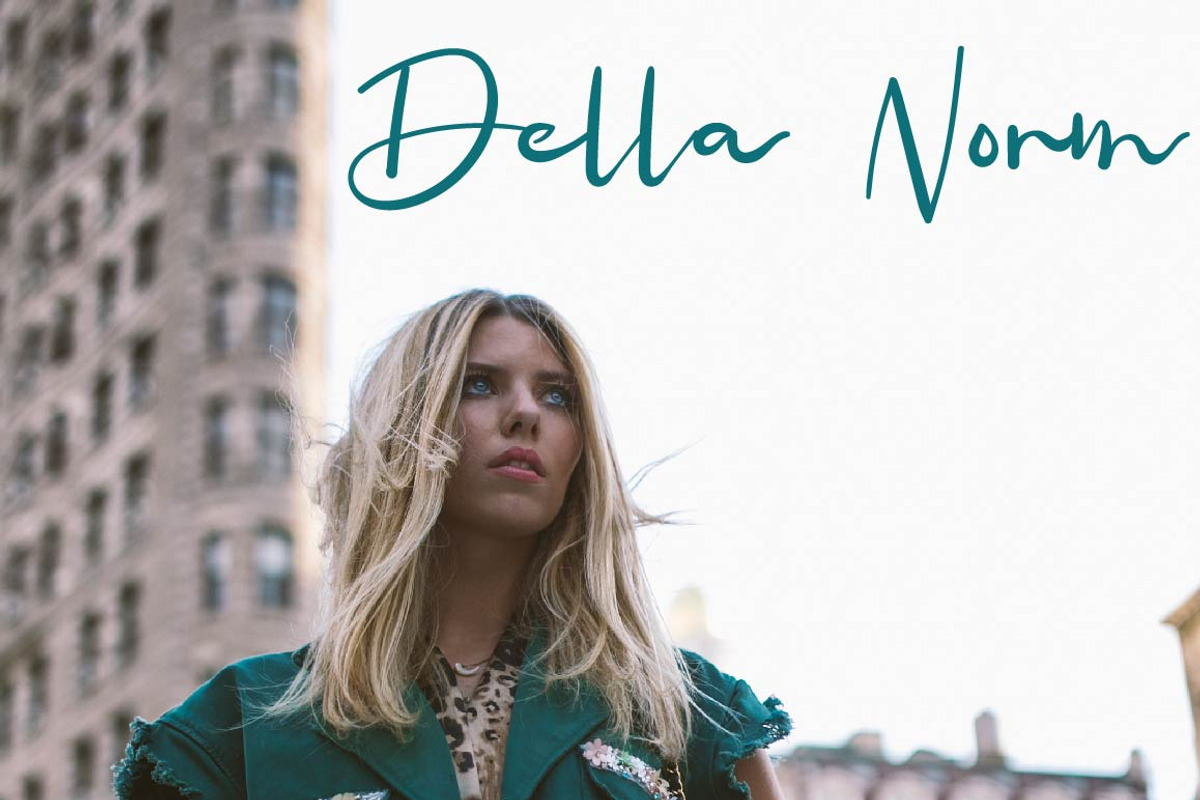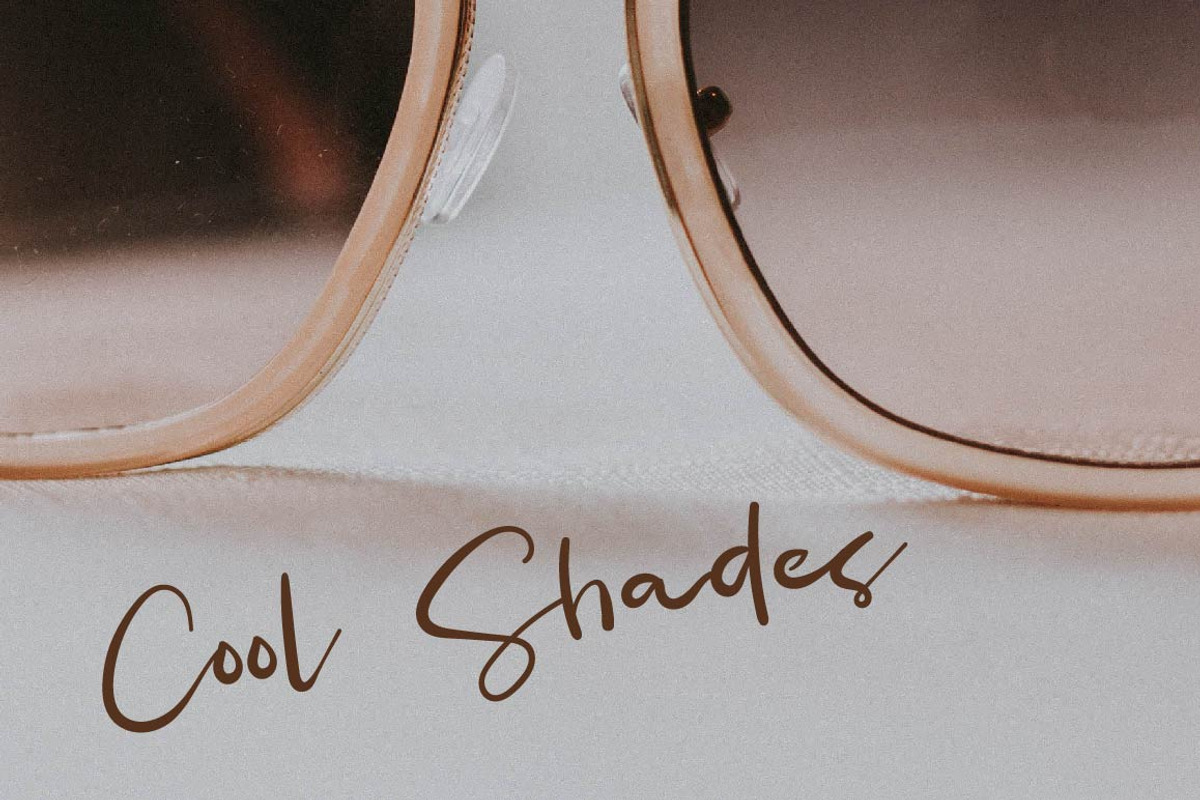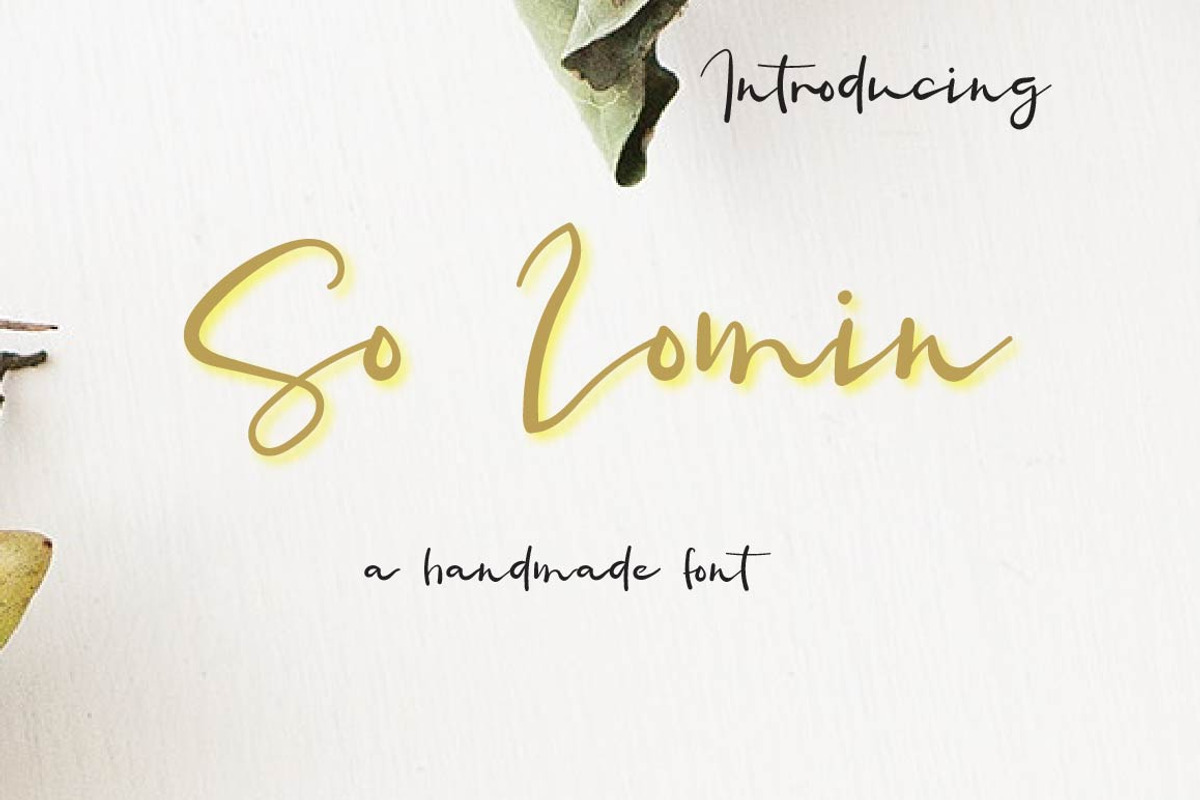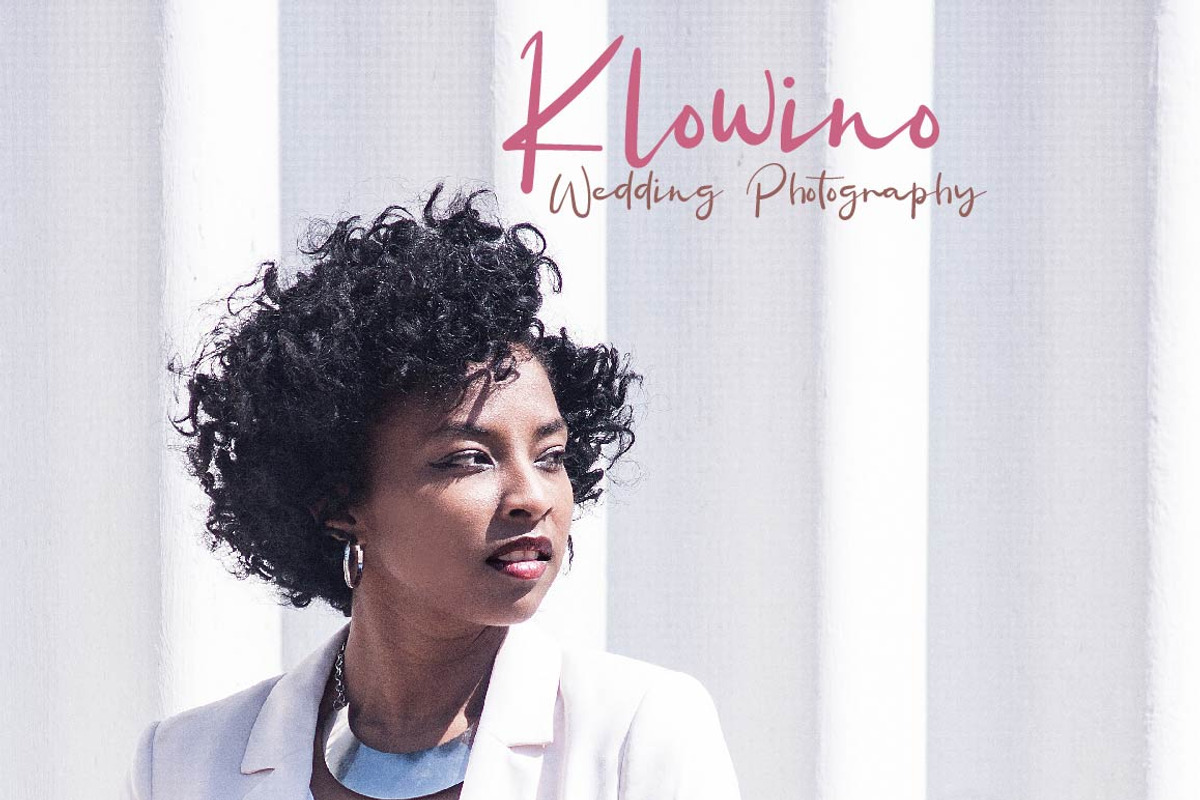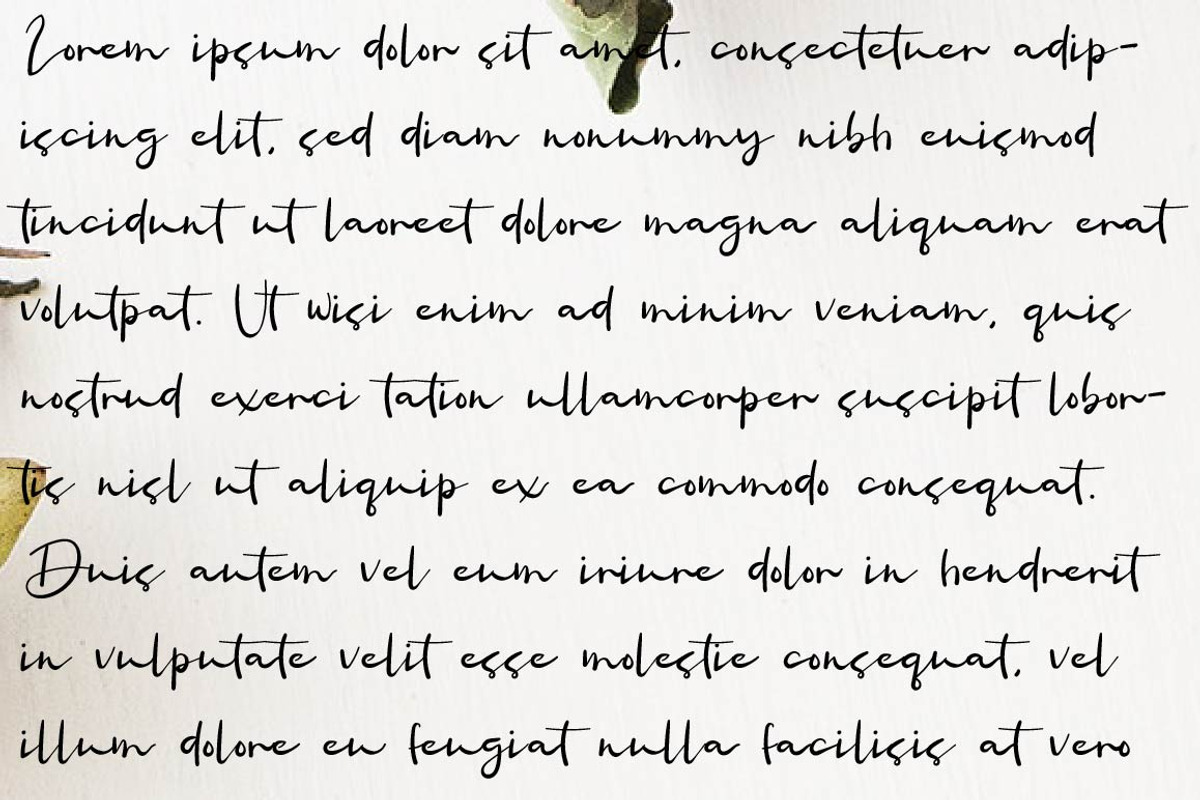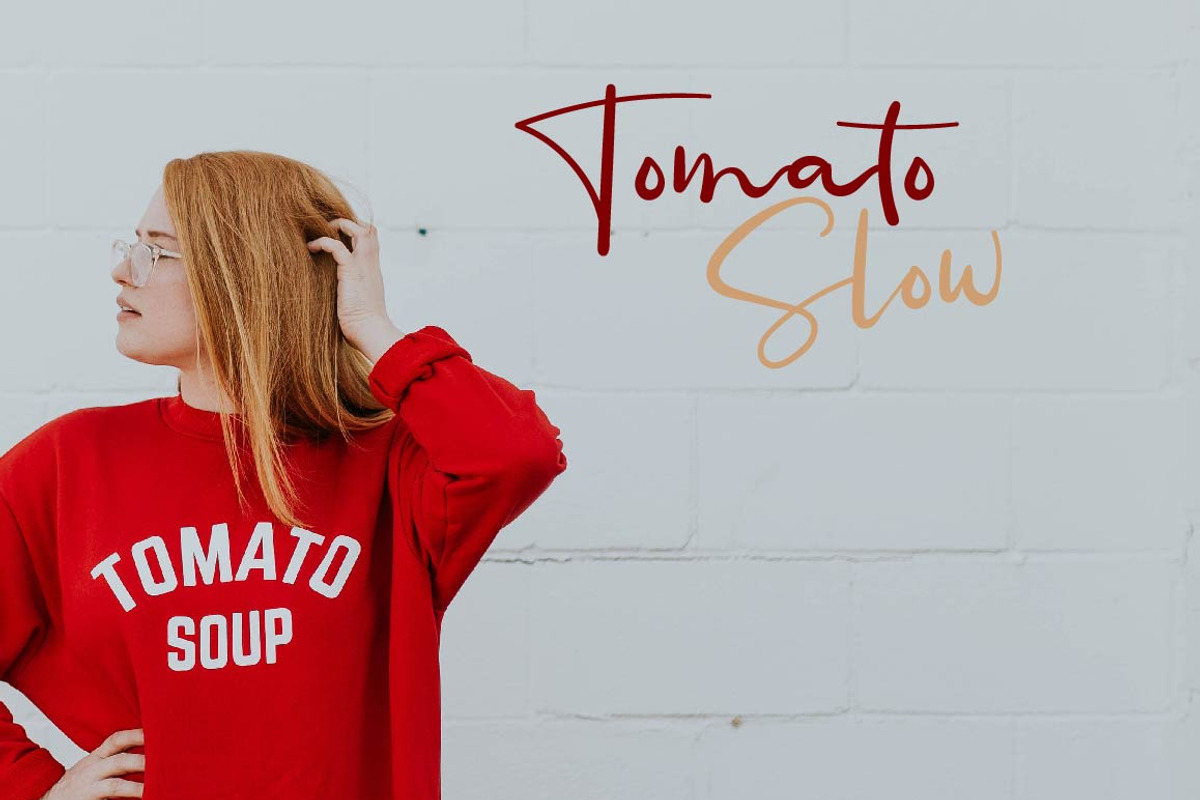
So Lomin - Valentine font
So Lomin Script Font is a decorative script font that can be used in myriad places. Typeface has been carefully crafted to make your text look beautiful. With modern style this font is perfect for many different project ex: quotes, blog header, poster, wedding, branding, logo, fashion, apparel, letter, invitation, stationery, etc.
So Lomin - Valentine font by Zmapist fits naturally into Branding, posters, packaging, typography.